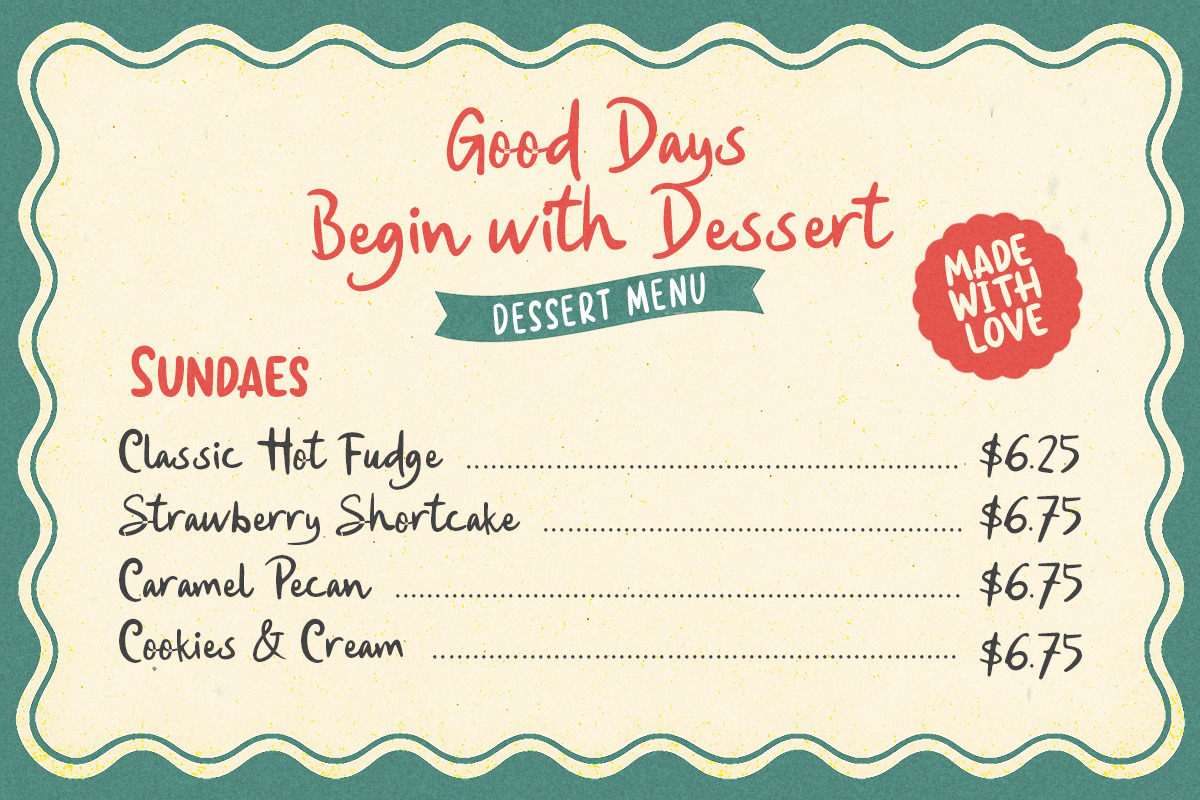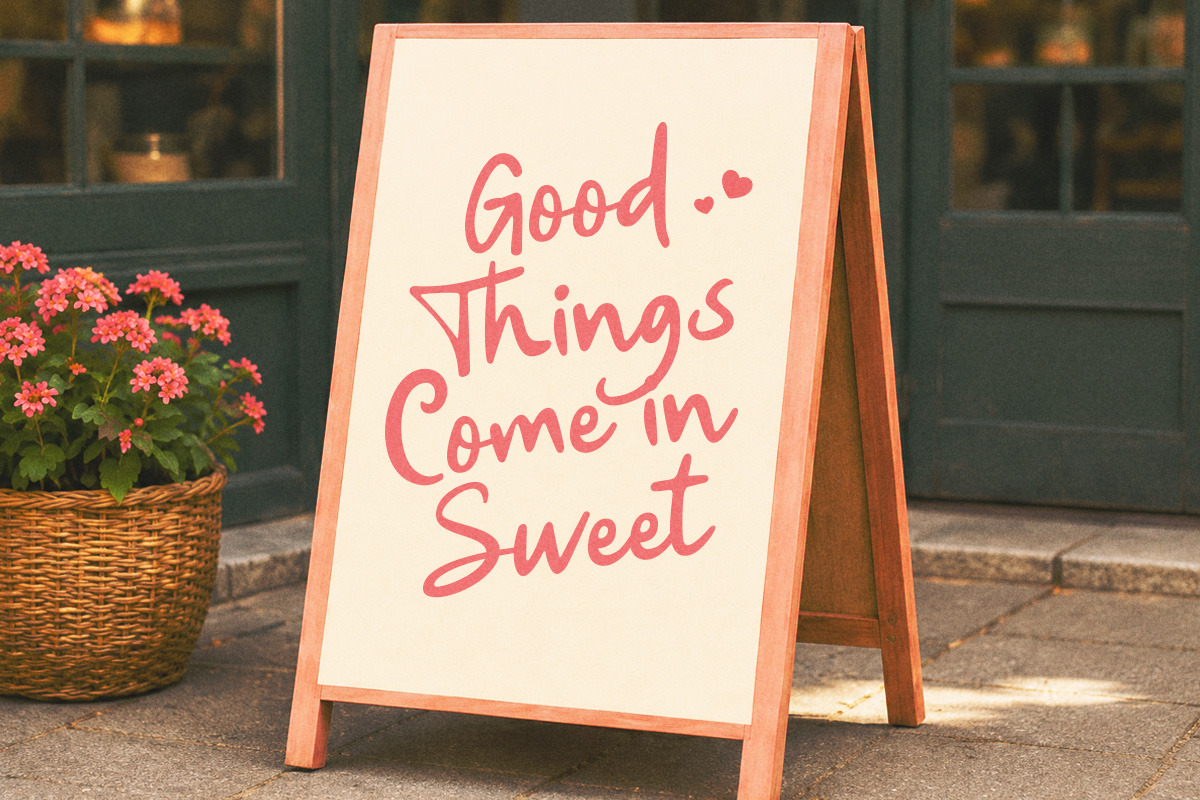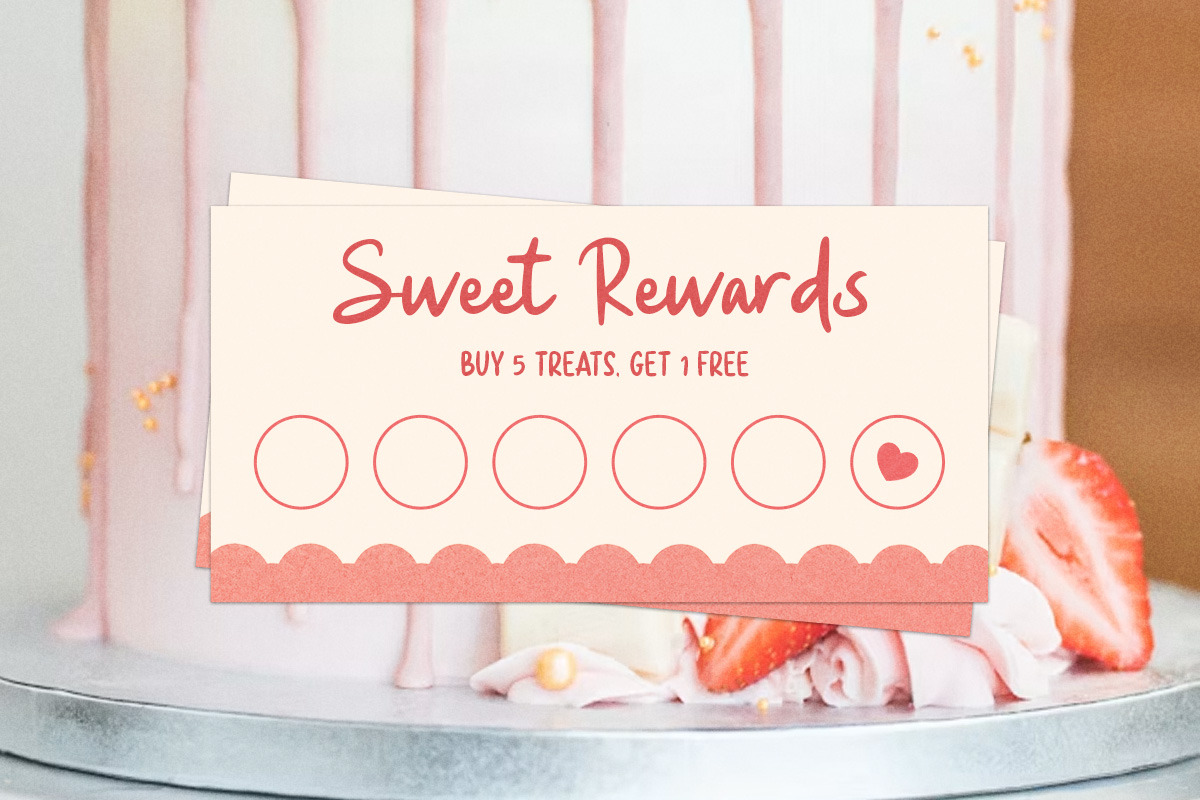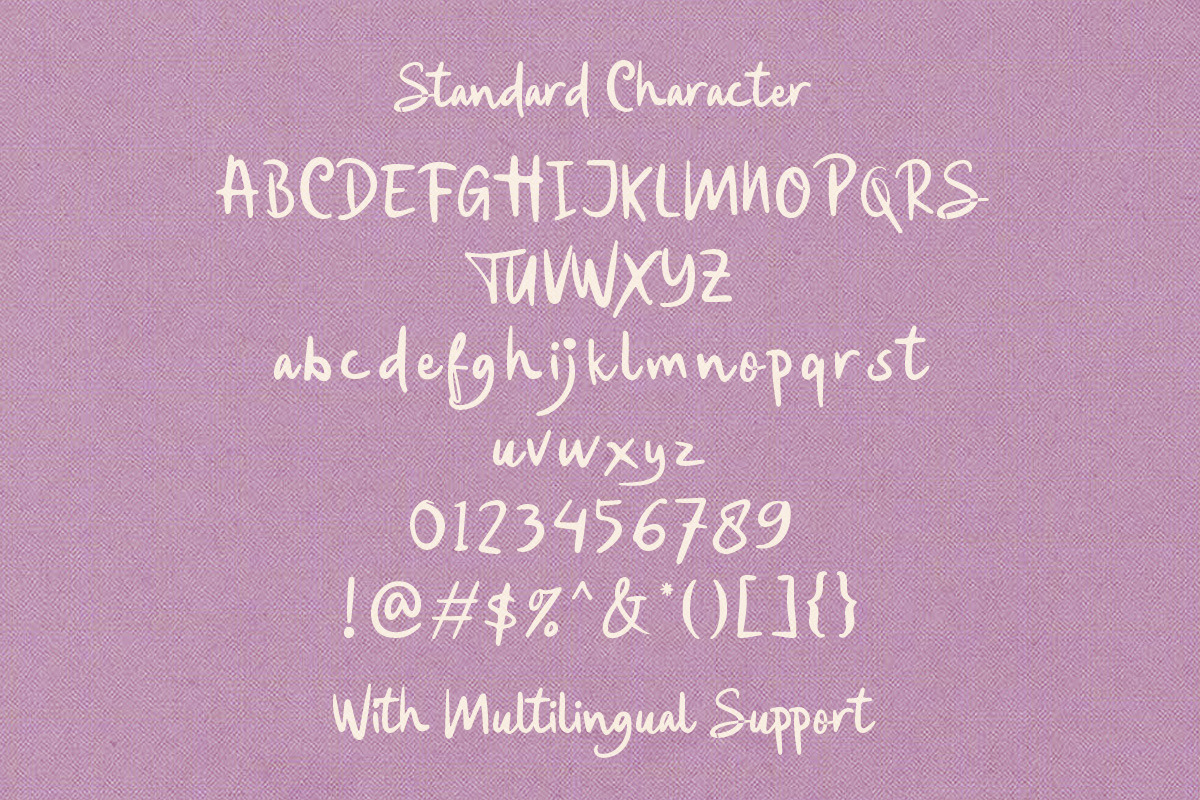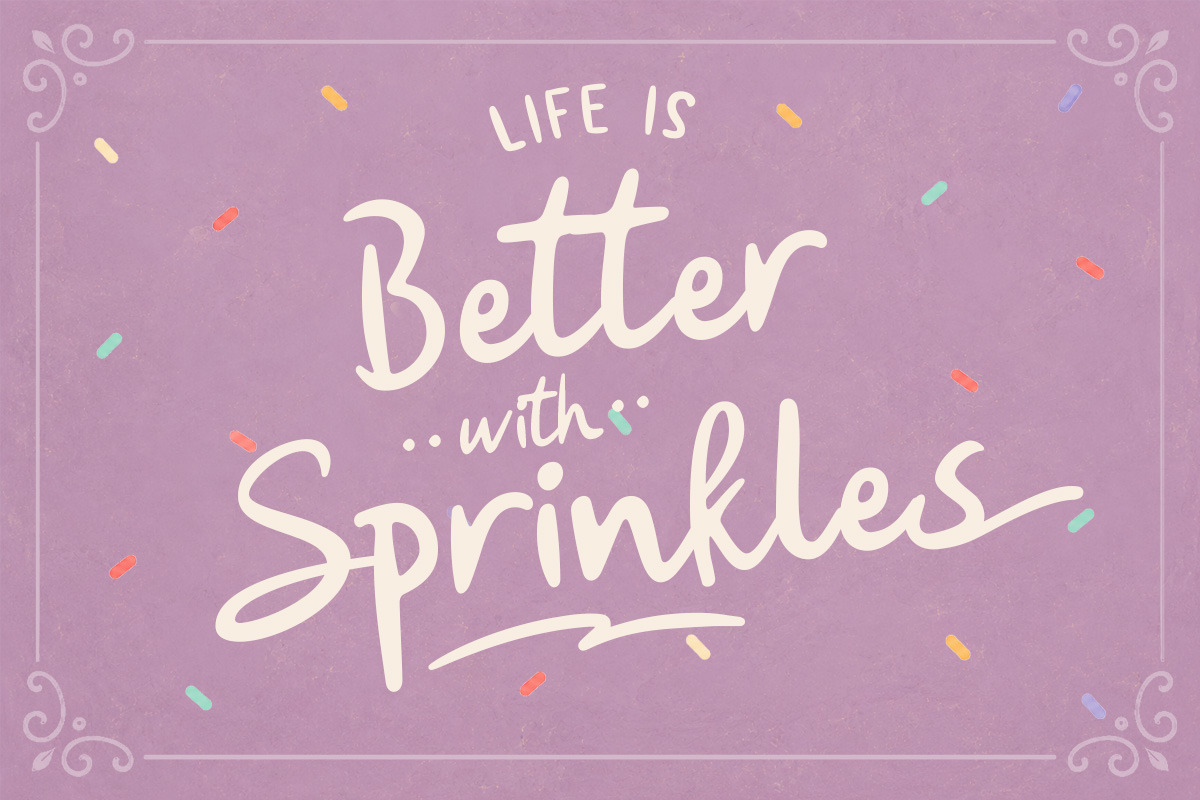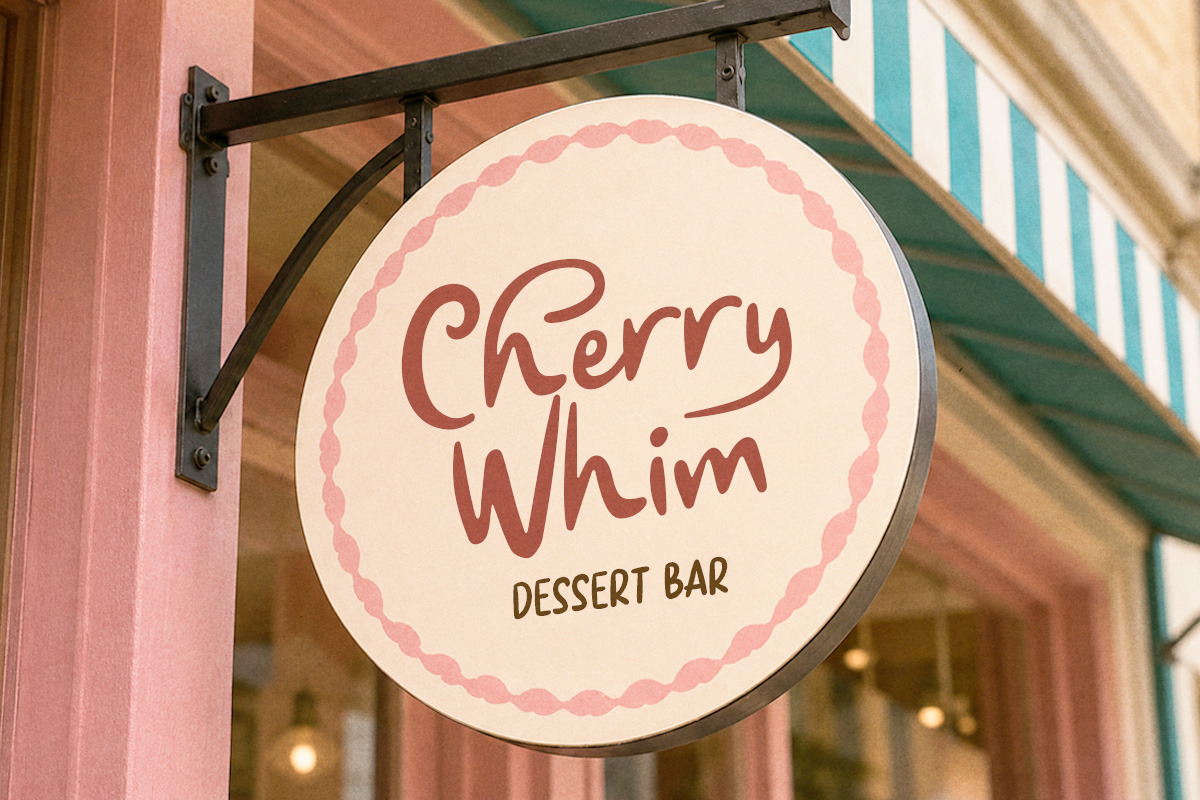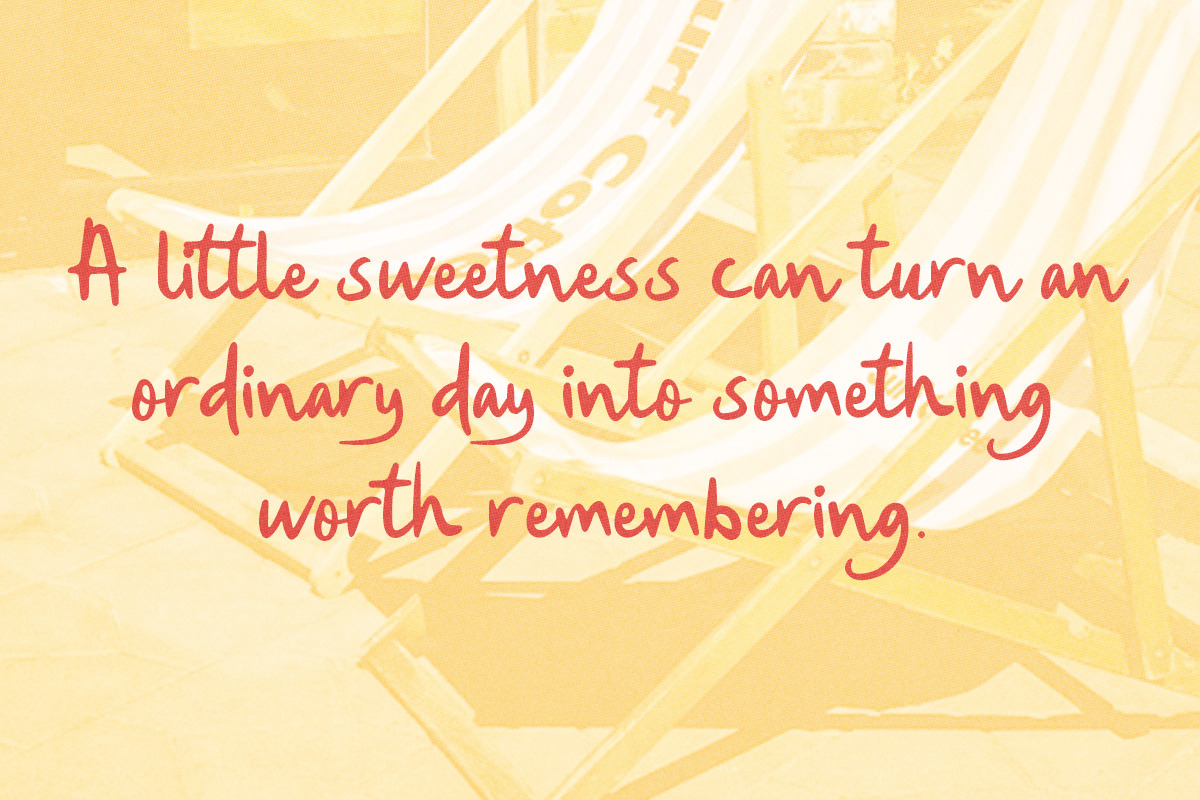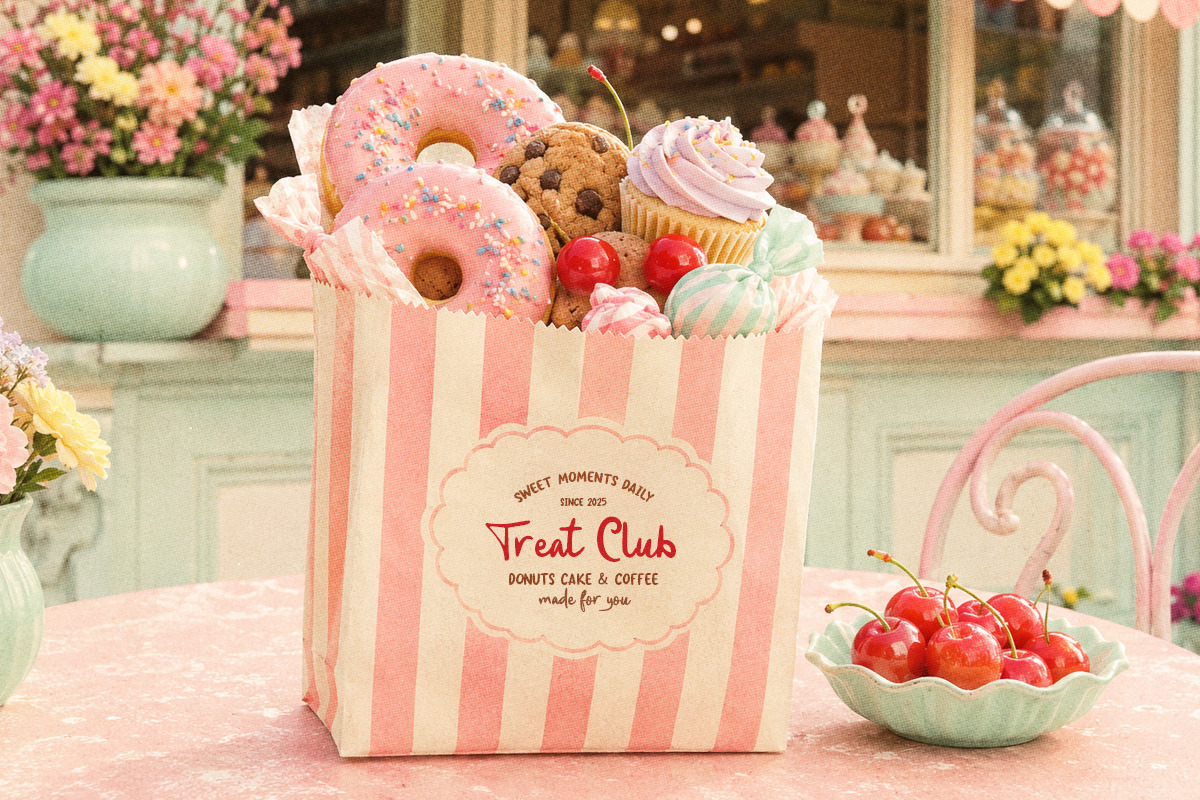
Snack Break Fun Script
Snack Break is a cheerful handwritten script that captures the cozy charm of sweet treats, café conversations, and carefree afternoons. Its smooth strokes, playful curves, and relaxed rhythm create a friendly look that feels warm, inviting, and full of personality.
Uppercase & lowercase
Numbers and punctuation
Alternates Character